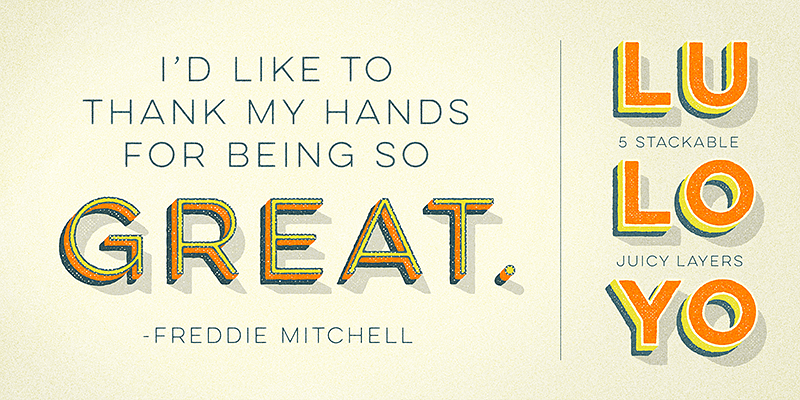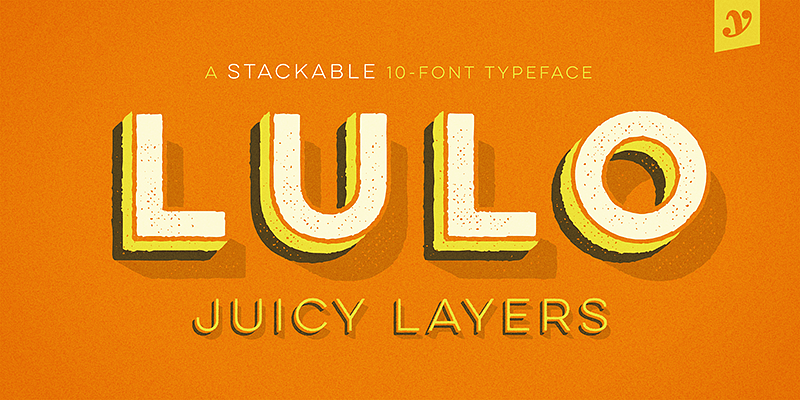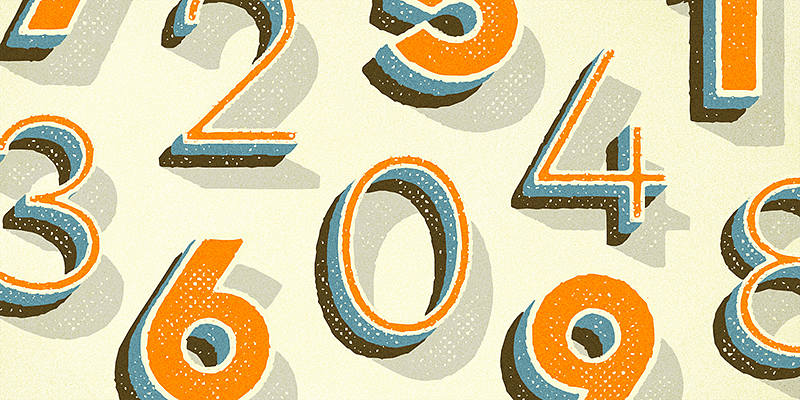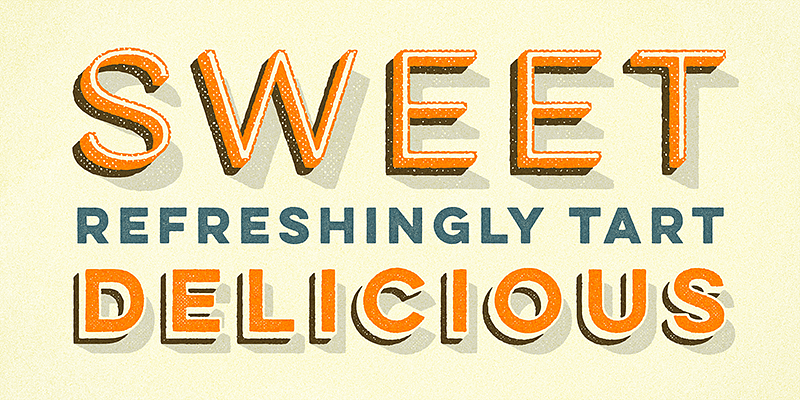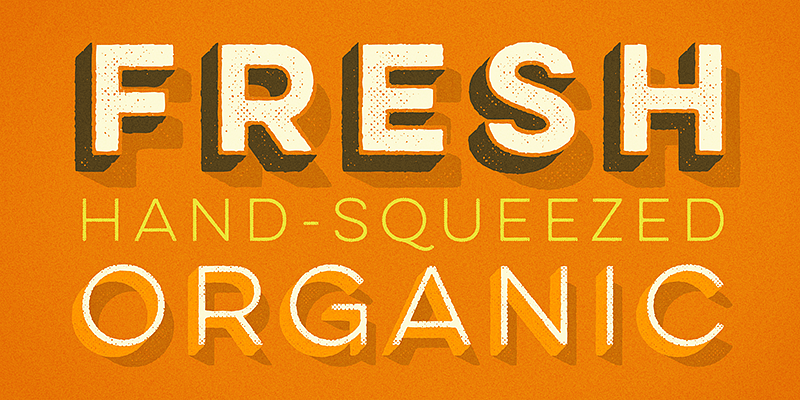
Lulo from Yellow Design Studio is a textured, retro, amazingly 3-dimensional font family. Lulo Clean is the non-distressed version of our original textured font family Lulo. Endless effects can be created by adding different colors to each of the 5 stackable layers. Lulo is all-caps, and has subtle texture variation between the upper and lowercase characters so duplicate distressing in double-letters can be avoided. Other features include regular and bold weights, high-resolution texture that looks great even at large sizes, and extensive language support.